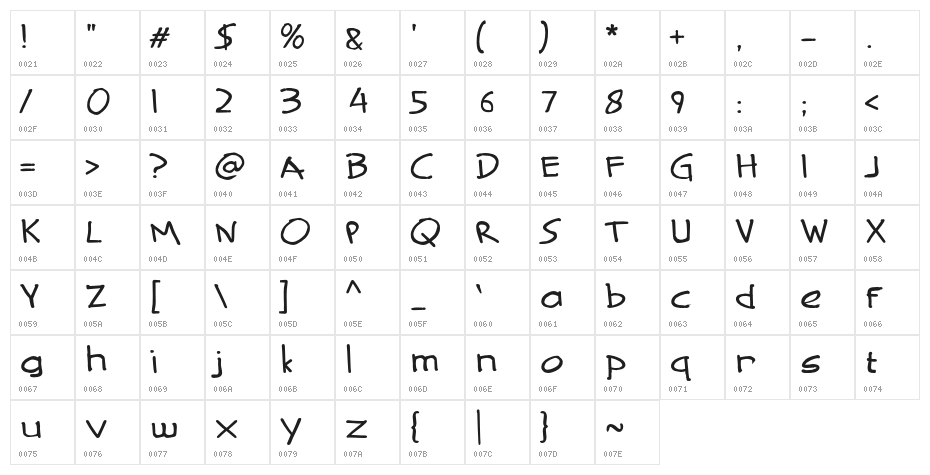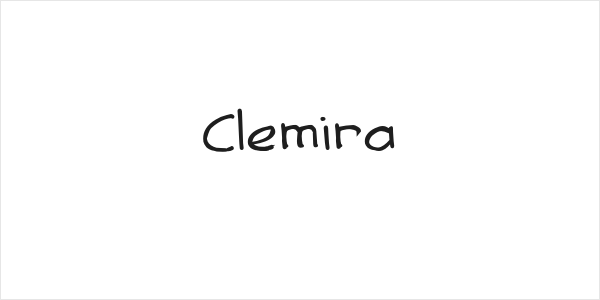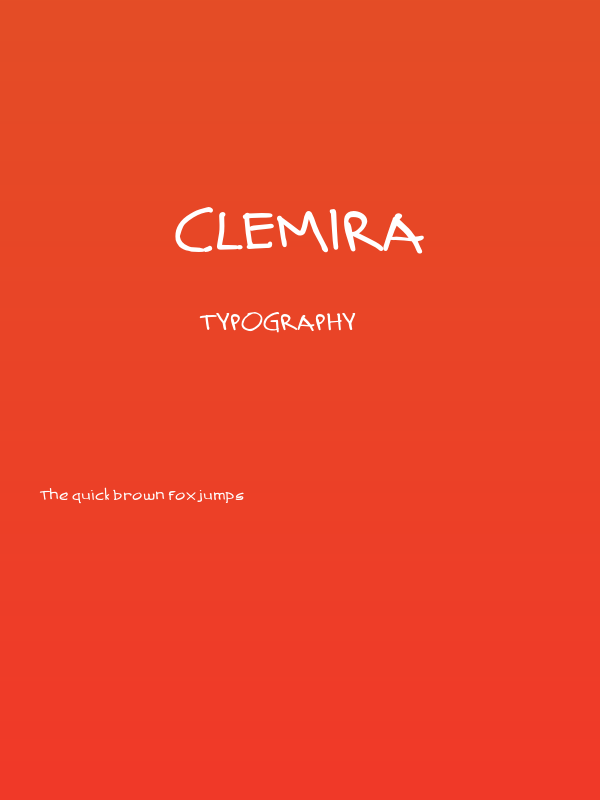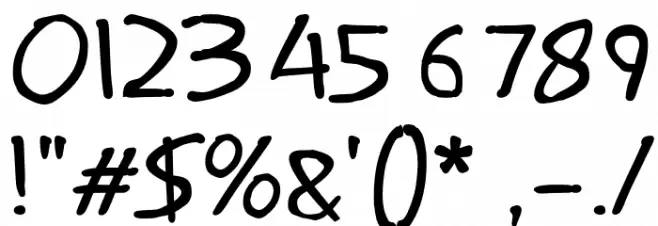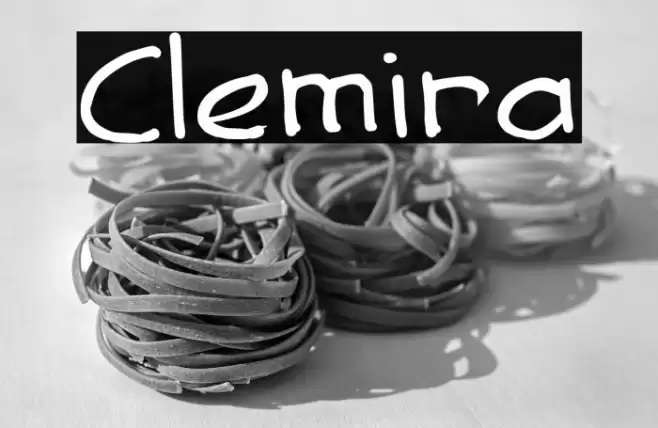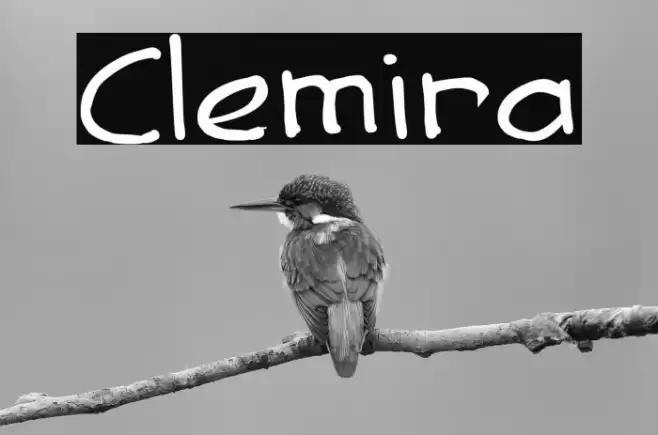
Clemira Font
Clemira Description
This font features a playful and informal handwritten style, characterized by its uneven strokes and casual appearance. The letters have a slightly irregular baseline, giving them a dynamic and lively feel. The uppercase and lowercase letters are well-balanced, with a consistent stroke width that maintains readability. The numerals and special characters follow the same playful design, making the font versatile for various creative projects. Its unique style adds a personal touch, making it suitable for designs that require a friendly and approachable look.